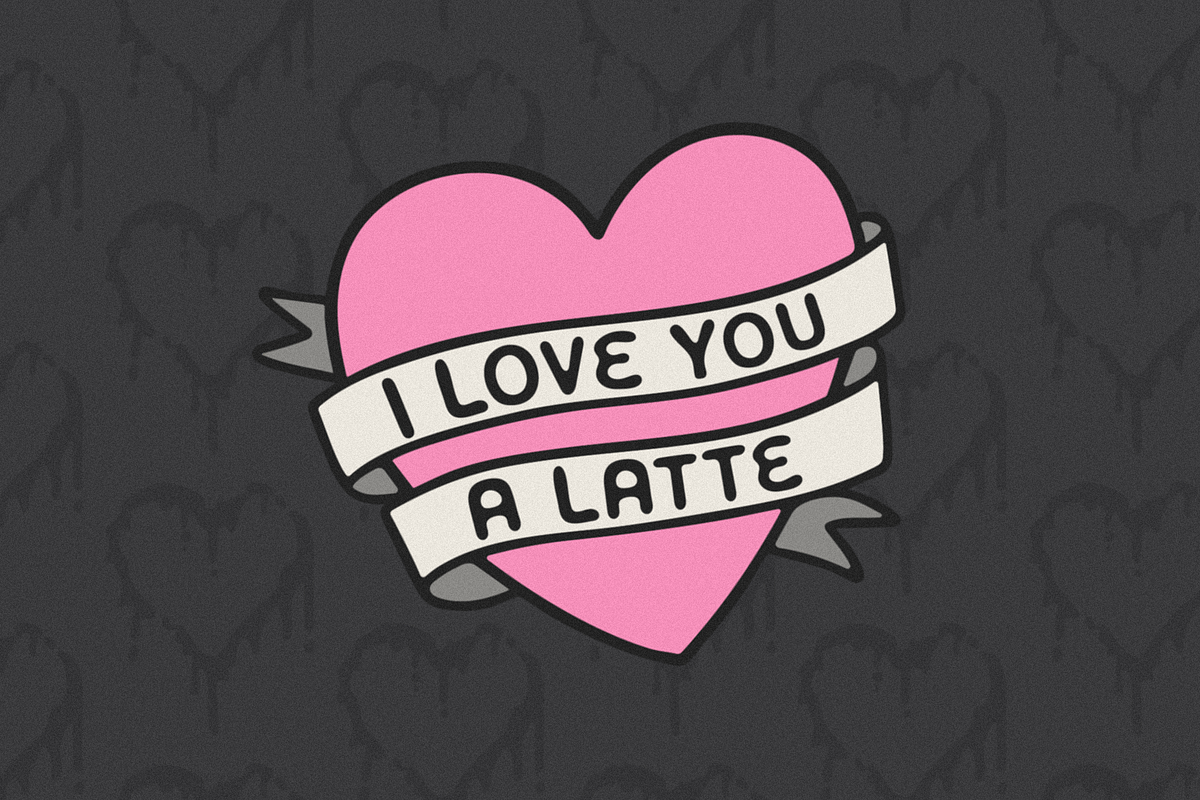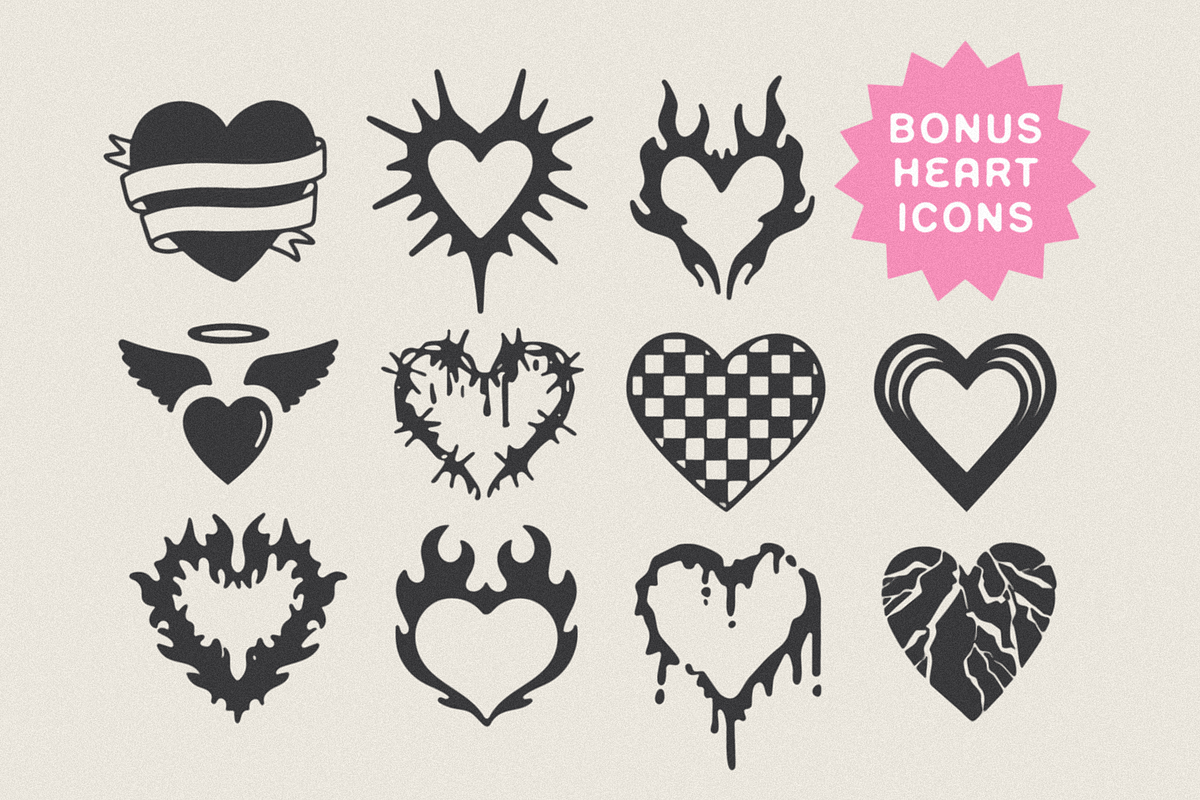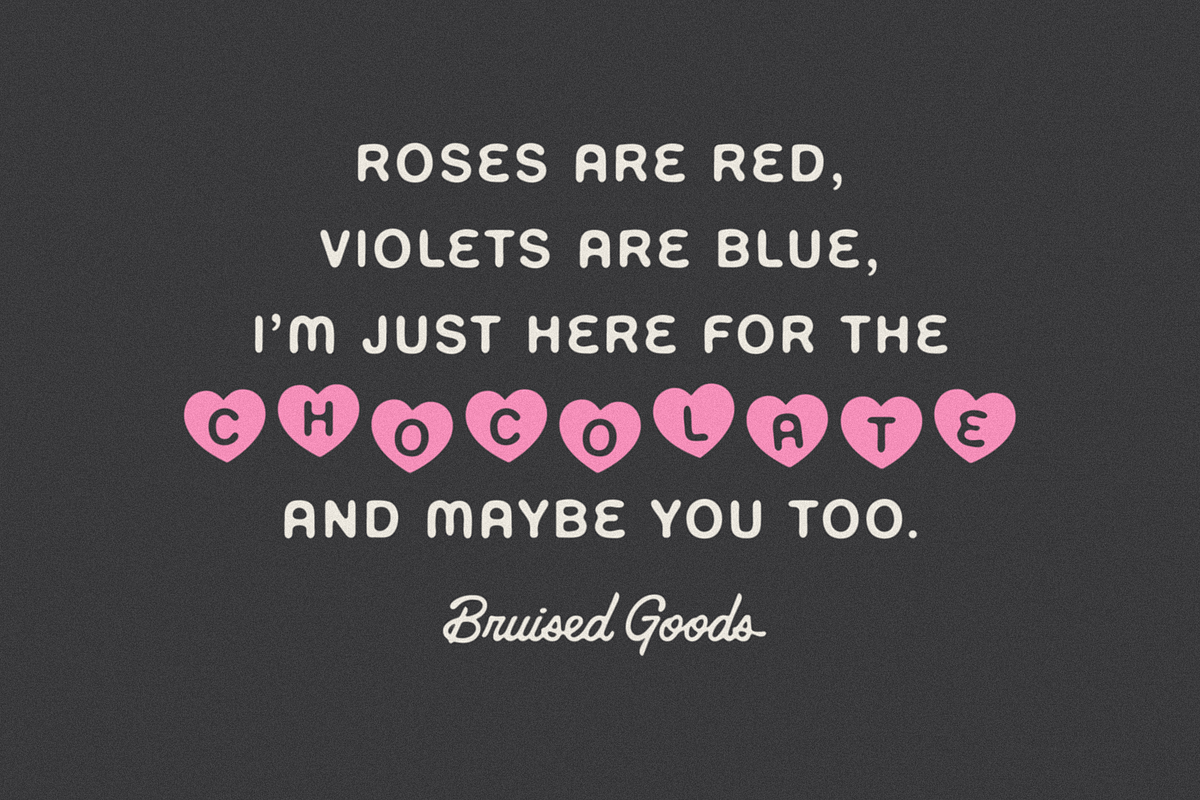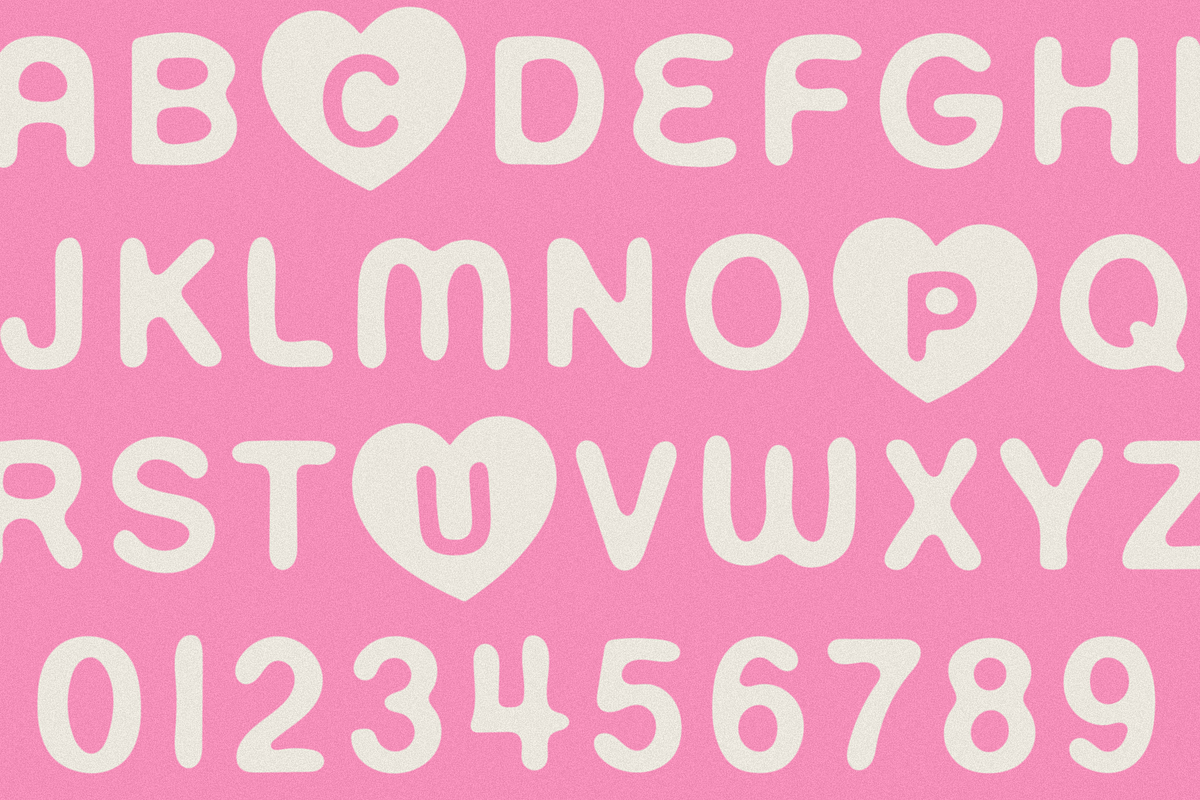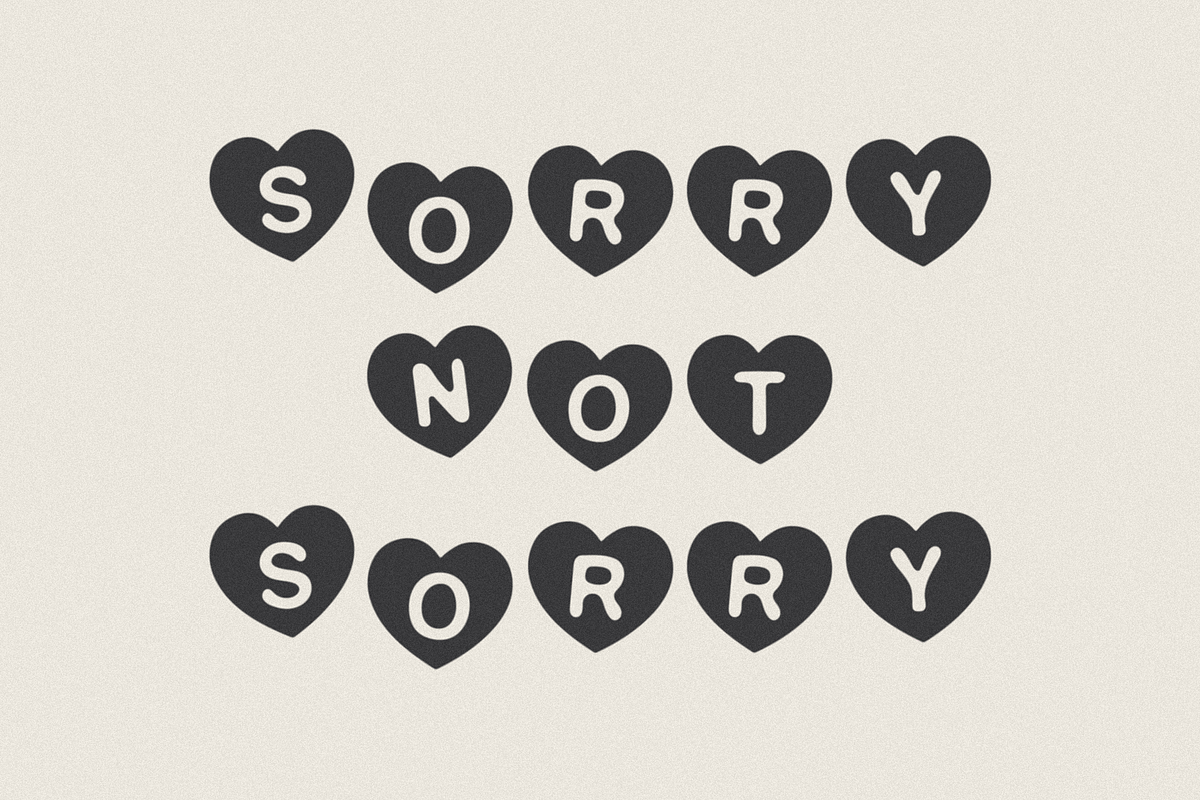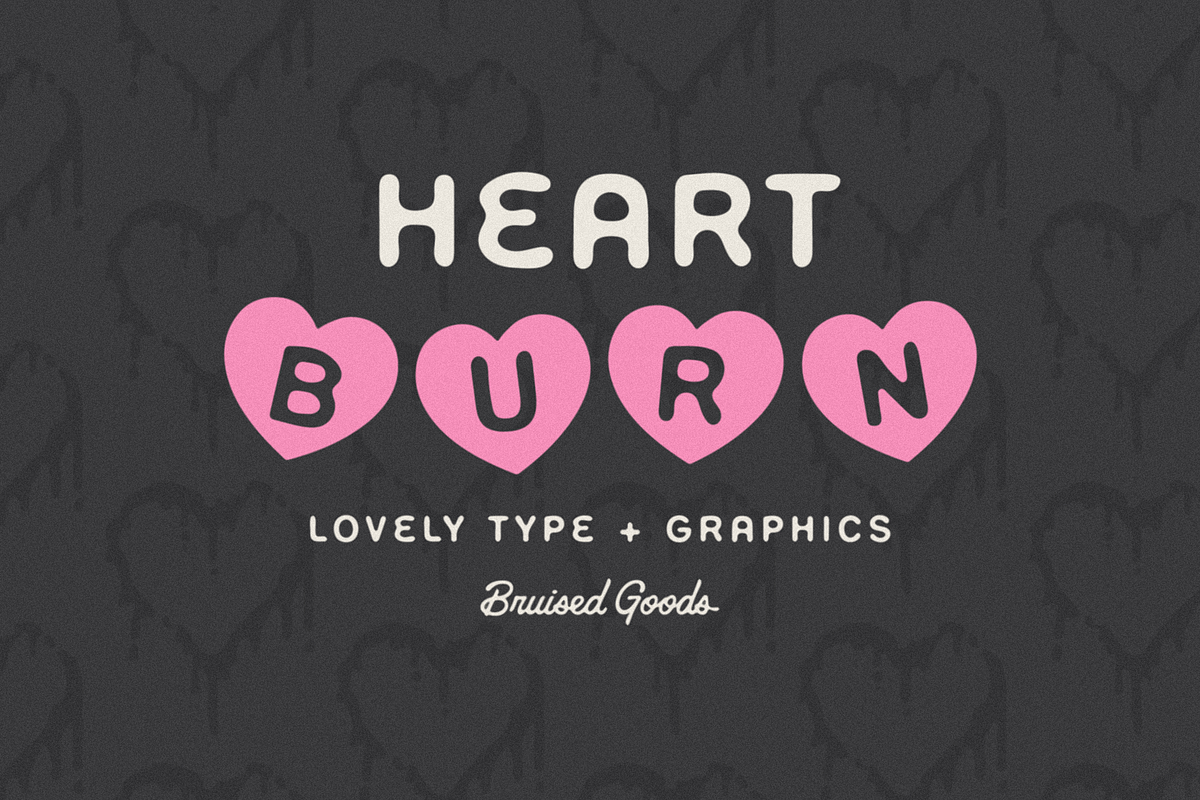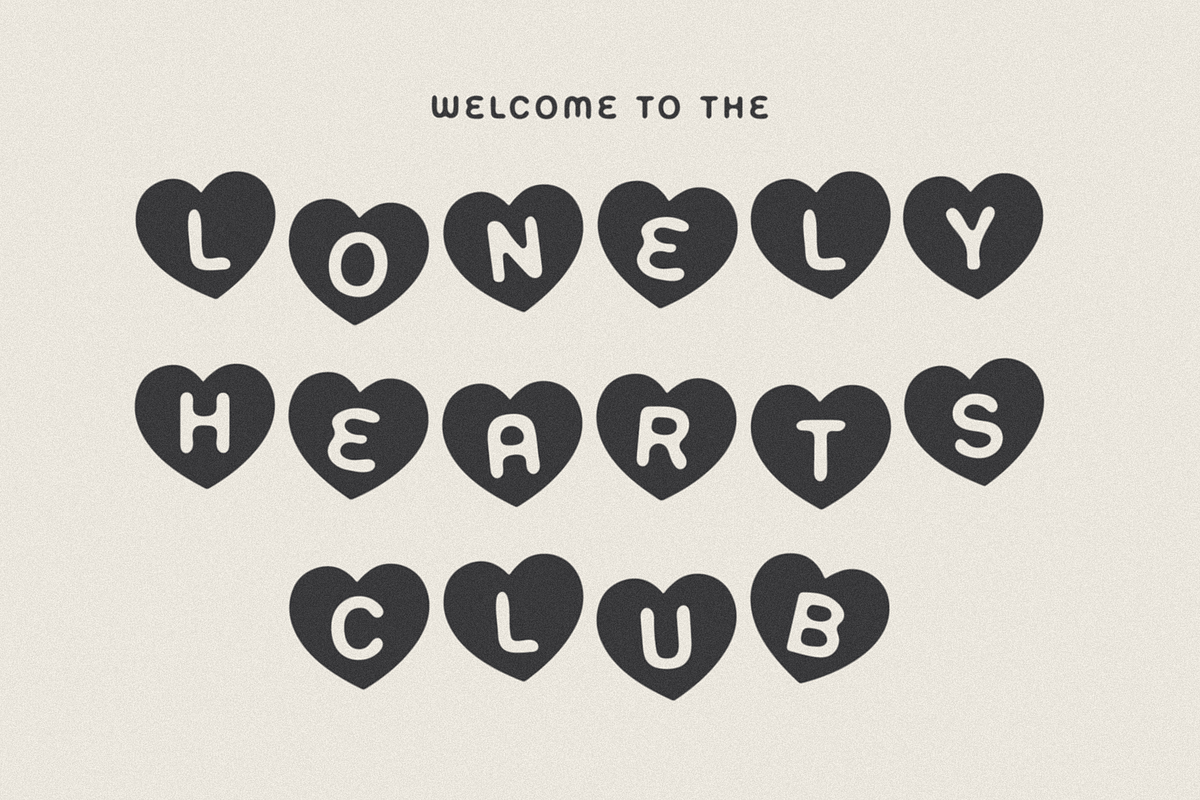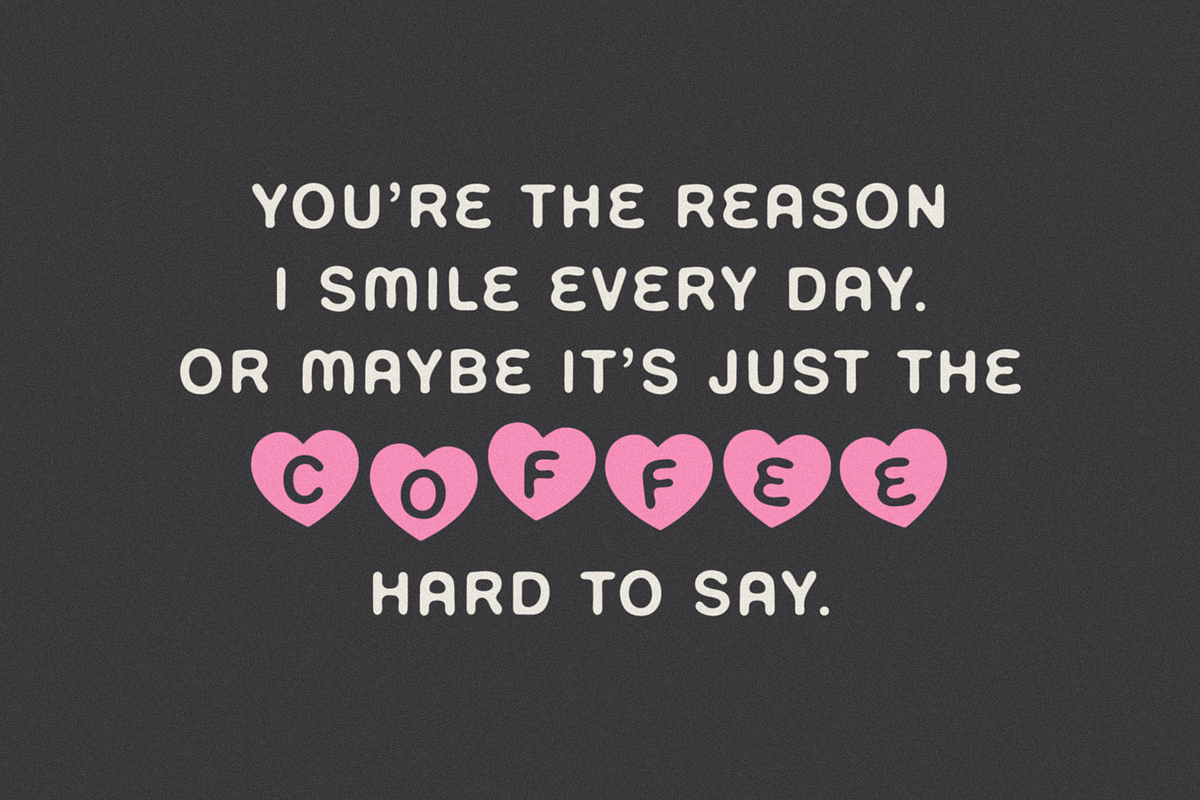
Heart Burn: Fonts + Graphics
HEART BURN – A lovely type collection with bonus heart graphics. Inspired by Valentine's Day and all things foolishly heartfelt.
- 261 Glyphs Total: All Uppercase, Numbers, Symbols, and Punctuation.